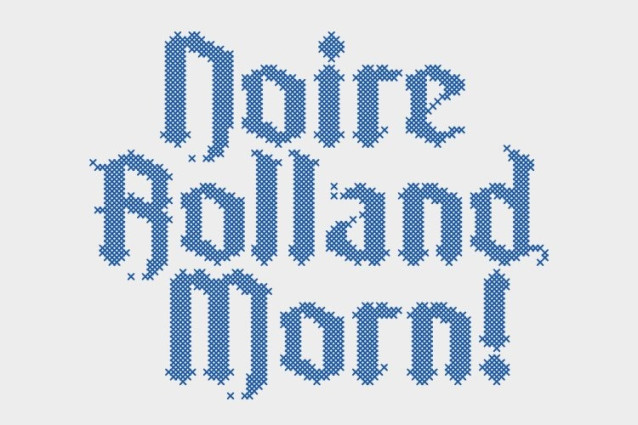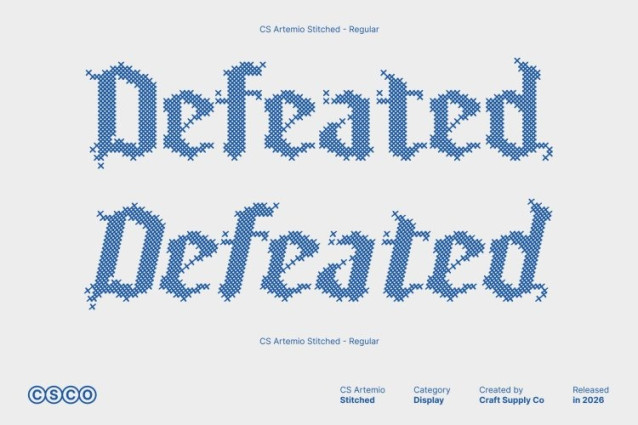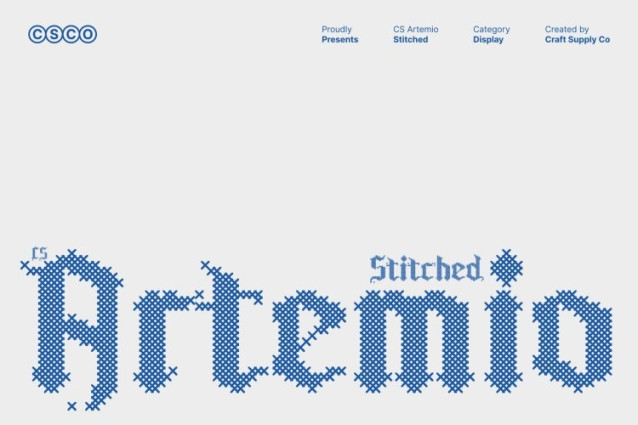
CS Artemio Stitched Font
CS Artemio Stitched Font – This is a Blackletter Gothic display serif font that captures the essence of medieval elegance and authority. Its intricate letterforms and dramatic structure evoke the rich tradition of historic calligraphy while maintaining a bold visual presence suited for modern design.
Intricate Letterforms with Embossed Stitch Detail
The detailed and ornate shapes of this font are complemented by a distinctive cross-shaped stitch pattern that creates an embossed, fabric-like texture across each character. This stitched detailing enhances the visual depth of the font, adding a classic, nostalgic, relaxed, and warm impression while preserving the dramatic strength and elegance of traditional Blackletter typography.
Timeless Tradition with Refined Sophistication
Drawing inspiration from medieval manuscripts and Gothic lettering, this font balances historical authenticity with refined design. The combination of bold strokes, decorative forms, and tactile stitched texture results in a typeface that feels both prestigious and expressive, perfect for designs that seek to convey heritage and sophistication.
Perfect for Themed, Luxury, and Statement Designs
This is ideal for medieval-themed projects, luxury branding, formal invitations, editorial headlines, posters, packaging, and creative visual identities. Its fusion of historical Blackletter elegance and handcrafted stitched texture ensures a memorable and striking typographic presence that leaves a lasting impression.